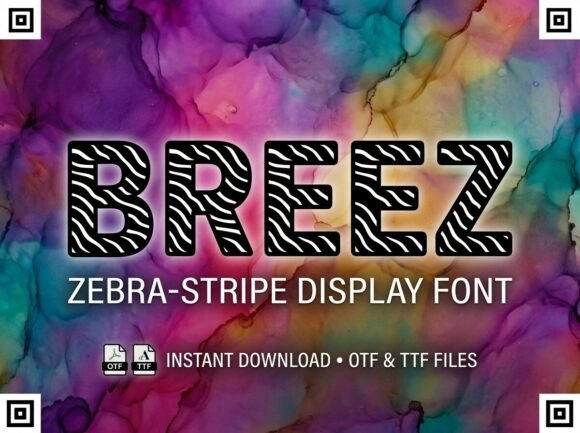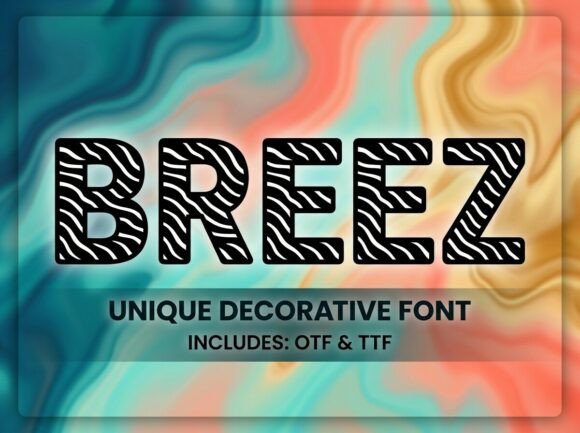
Introducing Breez Font: The Ultimate Decorative Display Font
Are you tired of using the same old fonts for your creative projects? Look no further than Breez Font, a stunning decorative display font designed to make a statement. With its unique artistic elements and strong visual personality, this font is perfect for creators who want to break away from the ordinary and add a touch of elegance to their work.
What Makes Breez Font Special?
Breez Font is a versatile font that can be used for a variety of creative projects, including bold headlines, artistic logos, and creative packaging. Its professional and polished finish ensures that your work looks high-end and sophisticated, making it perfect for designers, crafters, and artists who want to take their projects to the next level.
Key Features of Breez Font
- Unique Artistic Elements: Breez Font features unique artistic elements that set it apart from other fonts. Its decorative design makes it perfect for creating eye-catching headlines and titles.
- Strong Visual Personality: This font has a strong visual personality that adds a touch of elegance and sophistication to any project.
- Versatile: Breez Font is versatile enough to be used for a variety of creative projects, including bold headlines, artistic logos, and creative packaging.
- Professional and Polished Finish: This font has a professional and polished finish that ensures your work looks high-end and sophisticated.
IMPORTANT NOTE BEFORE PURCHASE: Breez Font is an ALL-CAPS (Uppercase Only) display typeface. It does not include lowercase letters. It is specifically designed for high-impact headlines, logos, and decorative initials where every letter is a work of art.
Why Choose Breez Font?
There are many reasons why Breez Font is the perfect choice for designers and crafters. Here are a few:
- Stand Out from the Crowd: With Breez Font, you can create unique and eye-catching headlines, titles, and logos that set you apart from the competition.
- Perfect for Creative Projects: This font is perfect for creative projects, including artistic logos, creative packaging, and bold headlines.
- Easily Customizable: Breez Font is easily customizable, making it perfect for designers who want to add their own personal touch to their projects.
- Use it for Headlines and Titles: Breez Font is perfect for creating eye-catching headlines and titles that grab attention.
- Experiment with Different Sizes: Try using Breez Font in different sizes to create visual interest and add emphasis to your text.
- Pair it with Other Fonts: Breez Font pairs well with other fonts, making it perfect for creating unique and visually appealing typography.